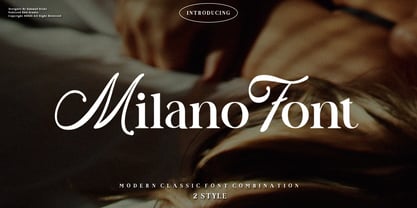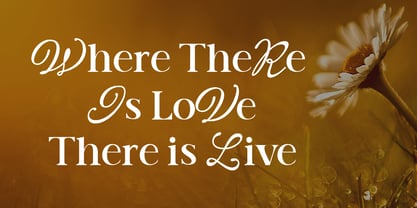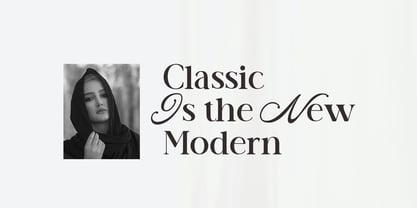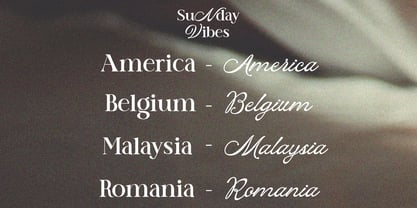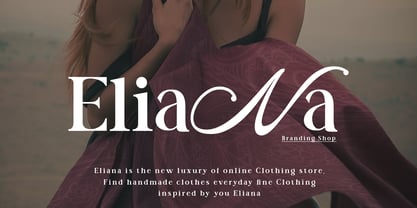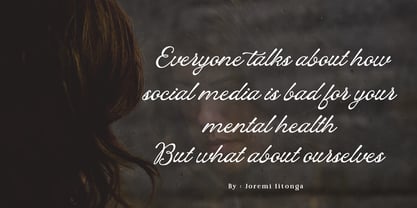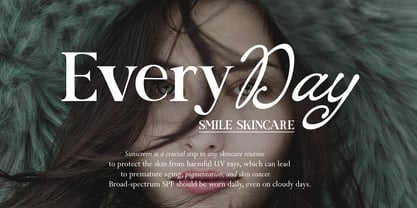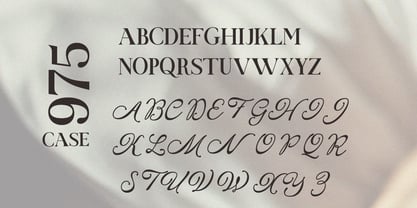
Milano Font Display
by Rhd Studio
The Milano Font Display Font Family was designed by Rahmad Rizky and published by Rhd Studio. Milano Font Display contains 2 styles and family package options.
Milano Font is a beautiful and inspiring blend of modern classic and serif. Available in 2 versions, Regular & Modern Classic.
Milano Font is made primarily for headlines, titles, and other short texts and is perfect for advertising, vintage mood boards, branding, logos, packaging, titles, editorial designs, modern logos, websites, social media quotes, wedding branding, modern and vintage designs.
Designers: Rahmad Rizky
Publisher: Rhd Studio
Foundry: Rhd Studio